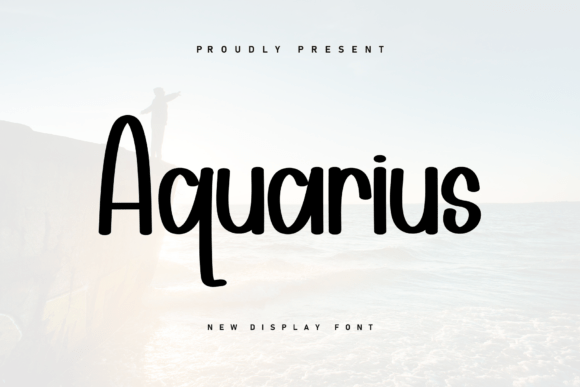
Aquarius Font: Bringing Whimsy to Your Designs
Have you ever been brainstorming a new design project and suddenly felt the urge to add a touch of warmth and personality? Maybe you’re working on a new branding campaign and want to make your logo stand out, or perhaps you’re creating a digital invitation that needs a little extra love. Whatever the case, you’re probably on the lookout for a font that will bring your vision to life.
Enter the Aquarius Font, a sweet and beautiful handwritten font that’s perfect for adding a cozy accent to any design project. With characters that dance along the baseline, this font is sure to add a playful and whimsical touch to your work. Whether you’re a seasoned designer or just starting out, the Aquarius Font is a valuable tool in your creative arsenal.
So why is the Aquarius Font so valuable for designers? For one, it’s incredibly versatile, making it easy to use in a wide range of projects, from digital invitations to marketing materials. Its unique, handwritten style also adds a level of personality and charm that’s hard to find with more traditional fonts.
- Unique Characteristics: Features a modern, sans-serif design with a unique blend of geometric and organic elements, making it ideal for contemporary designs.
Aquarius Font Review
As a designer, I was excited to dive into the Aquarius font and see what it had to offer. Overall, I was impressed with its unique blend of modern and vintage elements.
Here are the things that work well: ✨
- Unique character set: The Aquarius font features a wide range of characters, including some unique and exotic ones that add a touch of personality to any design.
- Highly legible: Despite its vintage feel, the font is surprisingly easy to read, making it a great choice for body text.
- Great for creative projects: The Aquarius font is perfect for designers who want to add a touch of whimsy and personality to their projects.
However, there are a few limitations to keep in mind: ⚠️
- Not suitable for formal documents: While the font is great for creative projects, it may not be the best choice for formal documents or business reports.
- Can be overwhelming: With its bold and playful feel, the Aquarius font can be overwhelming if used in excess.
Overall, I think the Aquarius font is a great addition to any designer’s toolkit. Its unique character set and high legibility make it a great choice for creative projects, and its vintage feel adds a touch of personality to any design.
Tips for Getting the Most Out of Aquarius Font
To get the most out of the Aquarius font, use it for:
– Creative projects that require a unique and stylish font.
– Titles and headings that need to stand out.
– Text that requires a modern and futuristic feel.
– Design projects that require a touch of elegance and sophistication.
Common Use Cases for Aquarius Font
The Aquarius font is commonly used for:
– Branding and logo design.
– Marketing materials such as brochures and flyers.
– Web design and development.
– Print design and publishing.
The recommended font size for using Aquarius Font is between 12pt and 24pt. However, designers should experiment with different font sizes to find the optimal size for their specific project. It’s also worth noting that the font’s x-height and line spacing can be adjusted to optimize readability at different font sizes.